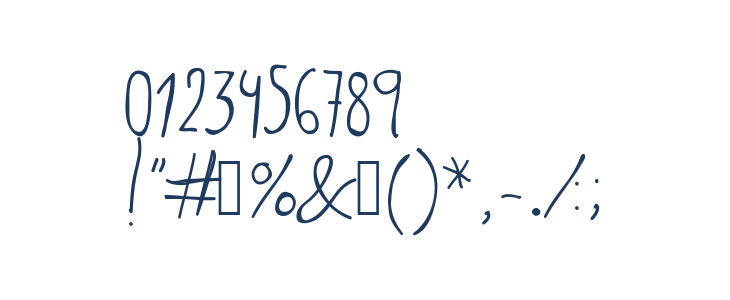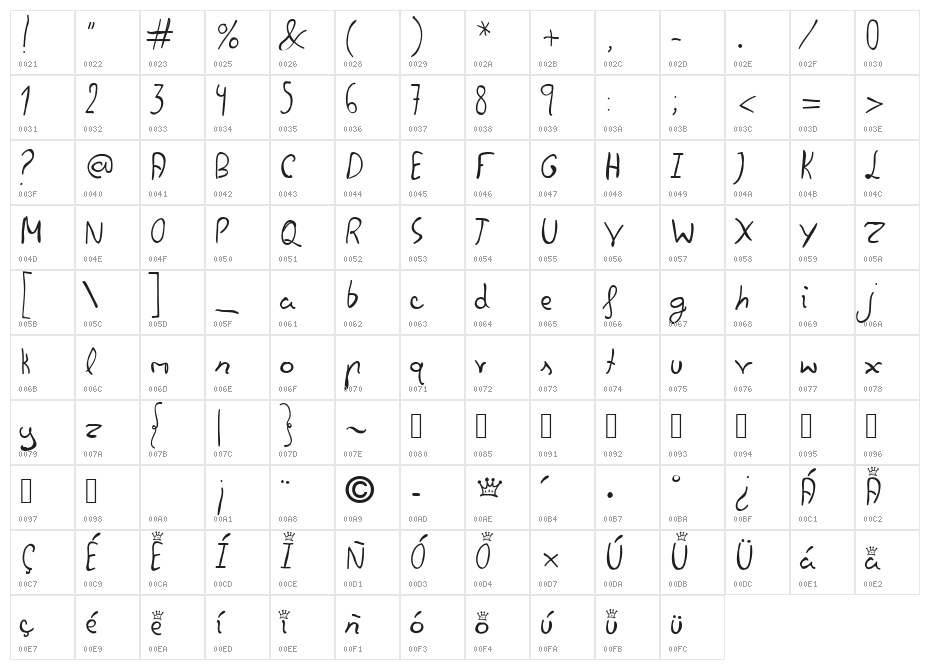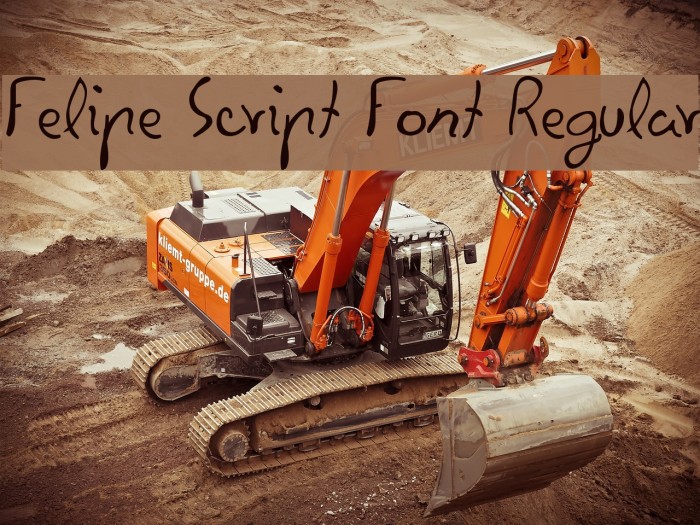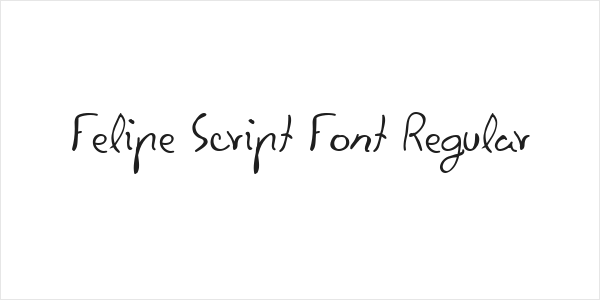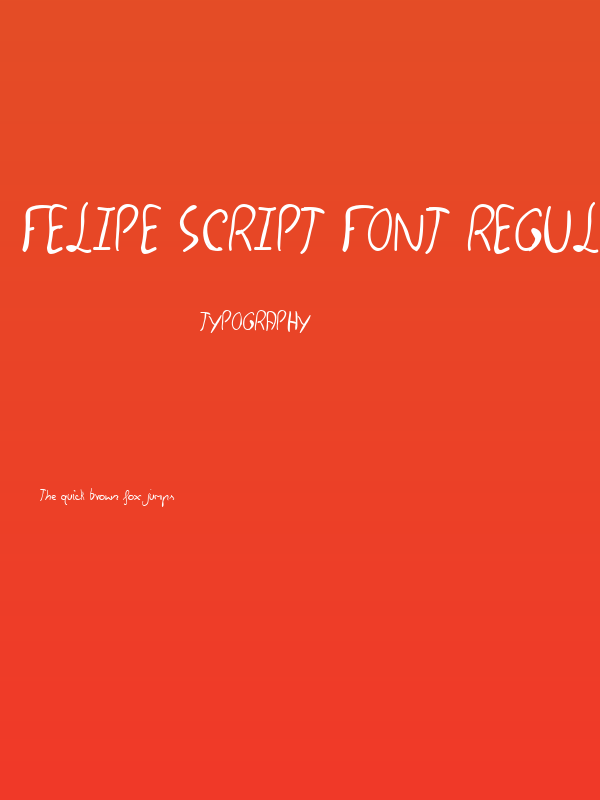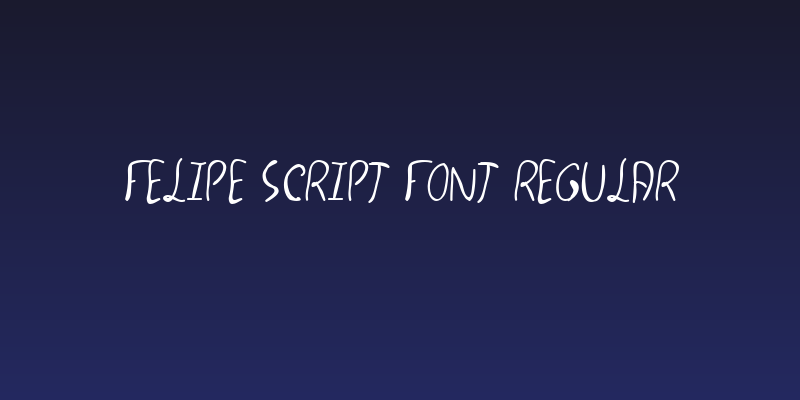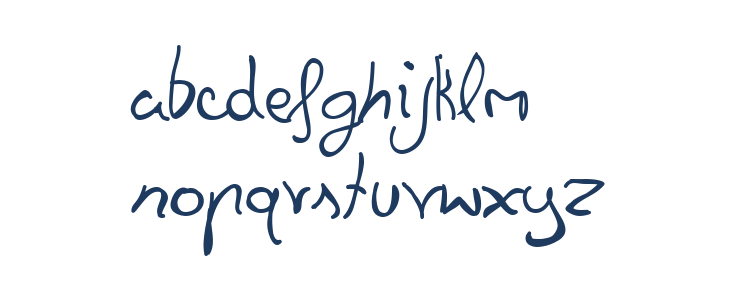
Felipe Script Font Regular Font
Felipe Script Font Regular Description
This font exudes a playful and casual handwritten style, characterized by its fluid and smooth curves. The letters are slightly slanted, giving it a dynamic and lively appearance. The uppercase letters are bold and prominent, while the lowercase letters maintain a consistent flow, enhancing readability. The numbers and special characters are crafted with the same whimsical touch, making them blend seamlessly with the alphabet. The overall design is informal yet stylish, perfect for adding a personal touch to any project.
Overall StyleCasual
Use CaseLogos, Invitations, Greeting Cards
Proposed ProjectsIdeal for greeting cards, invitations, personal branding, and creative projects that require a friendly and approachable feel.